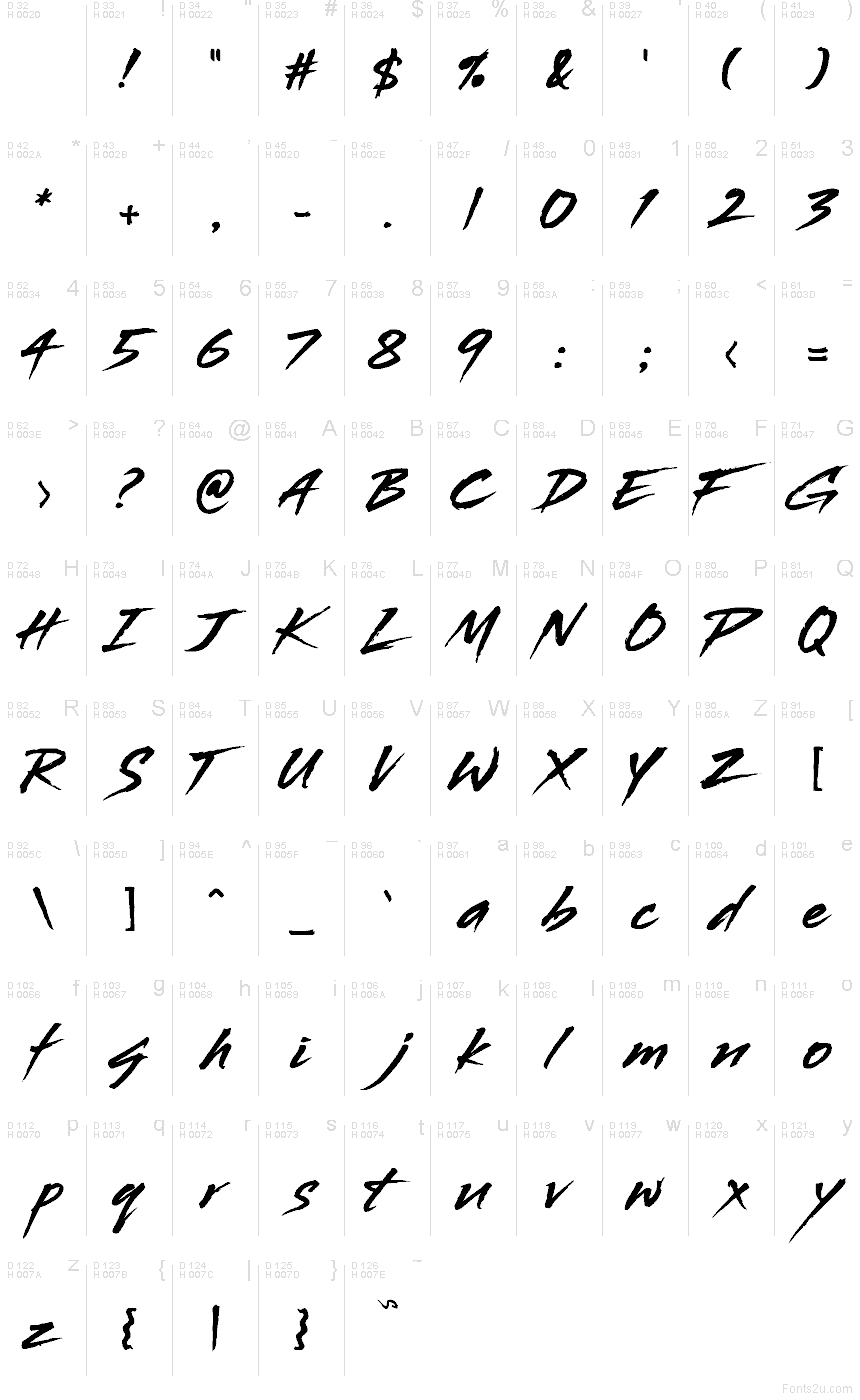
Golden Panda
Golden Panda by BlackFridayFont is a free brush script with a fast, hand-painted slant and the easy swagger of sign lettering. The letters sweep forward in broad, dry-brush strokes, mixing pointed starts, rough edges, and thick-to-thin shifts that keep the whole font feeling loose and human.
It fits naturally in poster headlines, apparel graphics, music artwork, cafe branding, and bold social promos, where a free font with this much motion can carry a few words on attitude alone. Use it for cover lines, title cards, or short logo-style wording when you want the brush texture and long strokes to do most of the work.